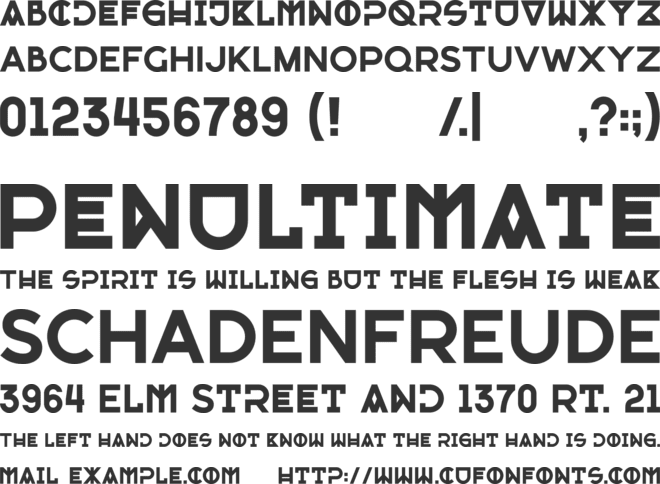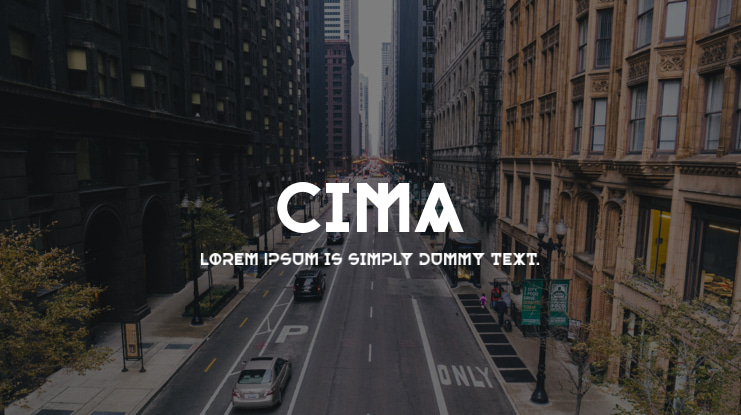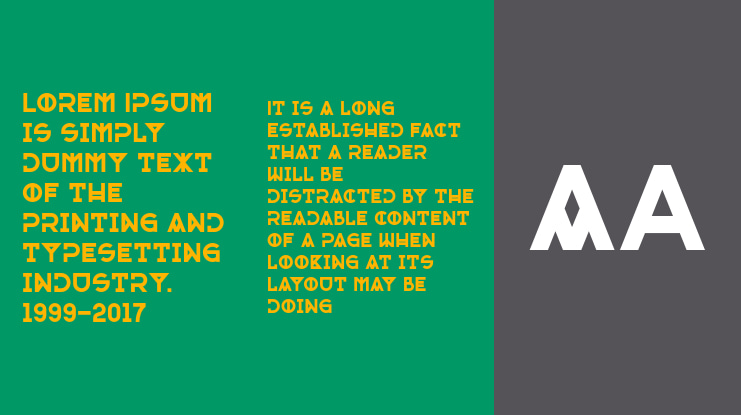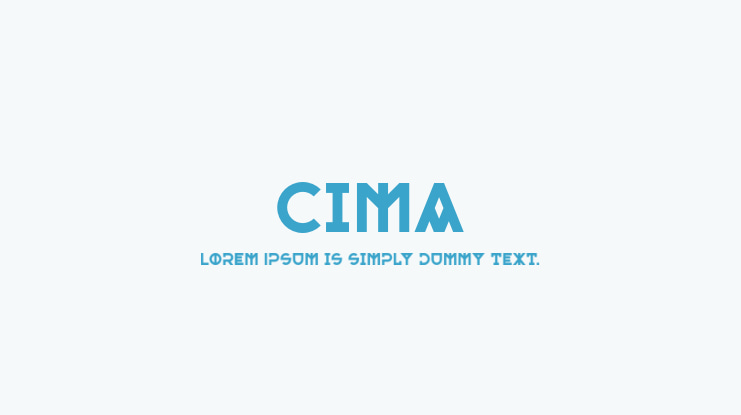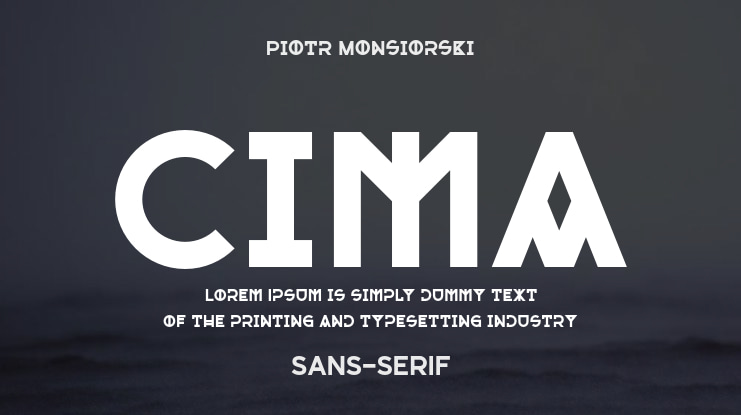
Cima Font Family
Piotr Monsiorski
Cima is a creative geometric font family with a unique look. It comes in three styles: Grande, Piccolo, and Ovest. The font contains a basic character set, including uppercase letters with their lowercase alternates, numbers, and symbols. It looks perfect for posters, headlines, logos, branding, and other artworks. View the Cima Font Family here.